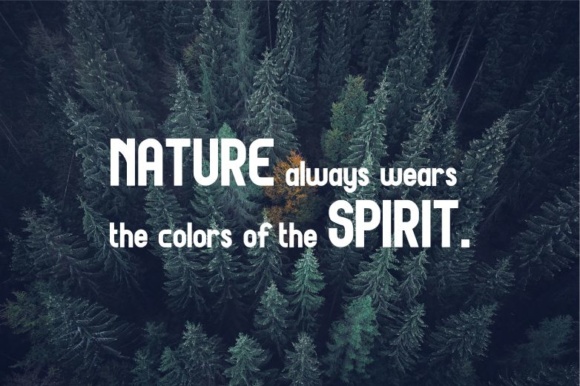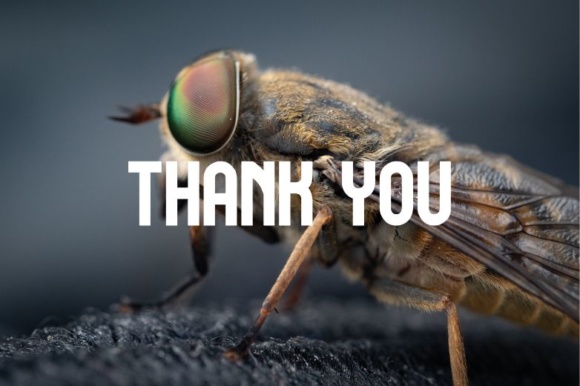
The Great Bold Font: Elevate Your Designs with Elegance
Have you ever been in the middle of a design project, and suddenly, you’re stuck on finding the perfect font? I recall a recent experience where a client’s request for a “simple yet classy” sans serif font had me scouring through my font library. That’s when I stumbled upon the Great Bold font, and it instantly became my go-to choice. In this article, I’ll share my journey with this beautiful font, its features, and how to make the most of it in your designs.
An Honest Review of Great Bold
Let’s dive into what makes Great Bold an excellent addition to your font collection.
- ✨ Simple yet classy sans serif design
- ✅ Perfect for making designs stand out
- ⚡️ Highly legible, even at smaller sizes
- 🎨 Versatile and works well with various design styles
While Great Bold is an excellent font, there are a few things to keep in mind:
- 🤔 Limited glyphs and OpenType features compared to other fonts
- ⚠️ Not ideal for body text due to its bold nature
One of the exciting aspects of using Great Bold is exploring its OpenType features and glyphs. While it may have limited glyphs compared to other fonts, you can still experiment with:
- Stylistic alternates for varied text styles
- Ligatures for a more creative text appearance
The Designer Inspiration Behind Great Bold
While the origins of Great Bold might be shrouded in mystery, it’s clear that the designers aimed to create a font that’s both elegant and versatile. Imagine a design studio focused on crafting fonts that speak to creativity and simplicity. Their goal was to create a font that could seamlessly blend into various design projects, from branding to advertising.
| Font Name | Great Bold Font |
| Author | MJB Letters |
| Is Great Bold suitable for body text? | No, Great Bold is a bold sans serif font, making it more suitable for headings and titles rather than body text. |
| Does Great Bold support OpenType features? | Great Bold has limited OpenType features, but you can still explore stylistic alternates and ligatures for creative text styles. |
Great Bold is a simple yet classy sans serif font that’s perfect for making your designs stand out. With its versatility, legibility, and elegant design, it’s an excellent addition to any design project. Whether you’re a designer, crafter, or creative hobbyist, Great Bold is sure to become a favorite in your font collection.